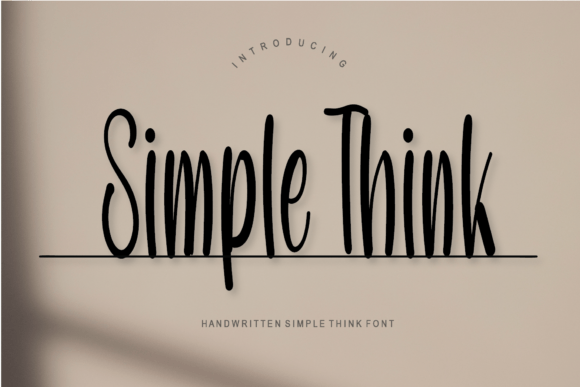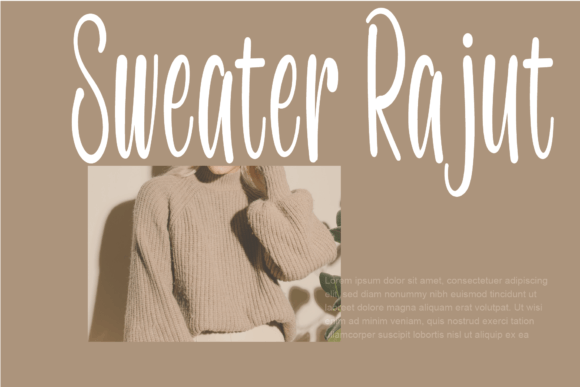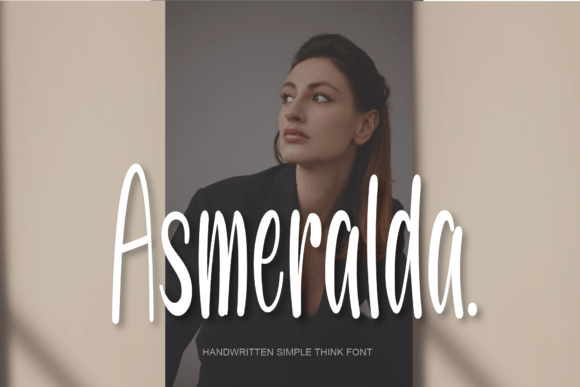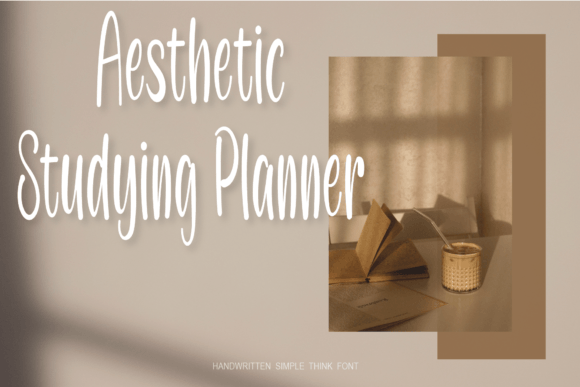
About Simple Think
Simple Think is a simple and cute handwritten font with a modern impression. It looks stunning on greeting cards, business cards, logos, product packaging, advertisements, quotes, and any other design that needs a cheerful look!